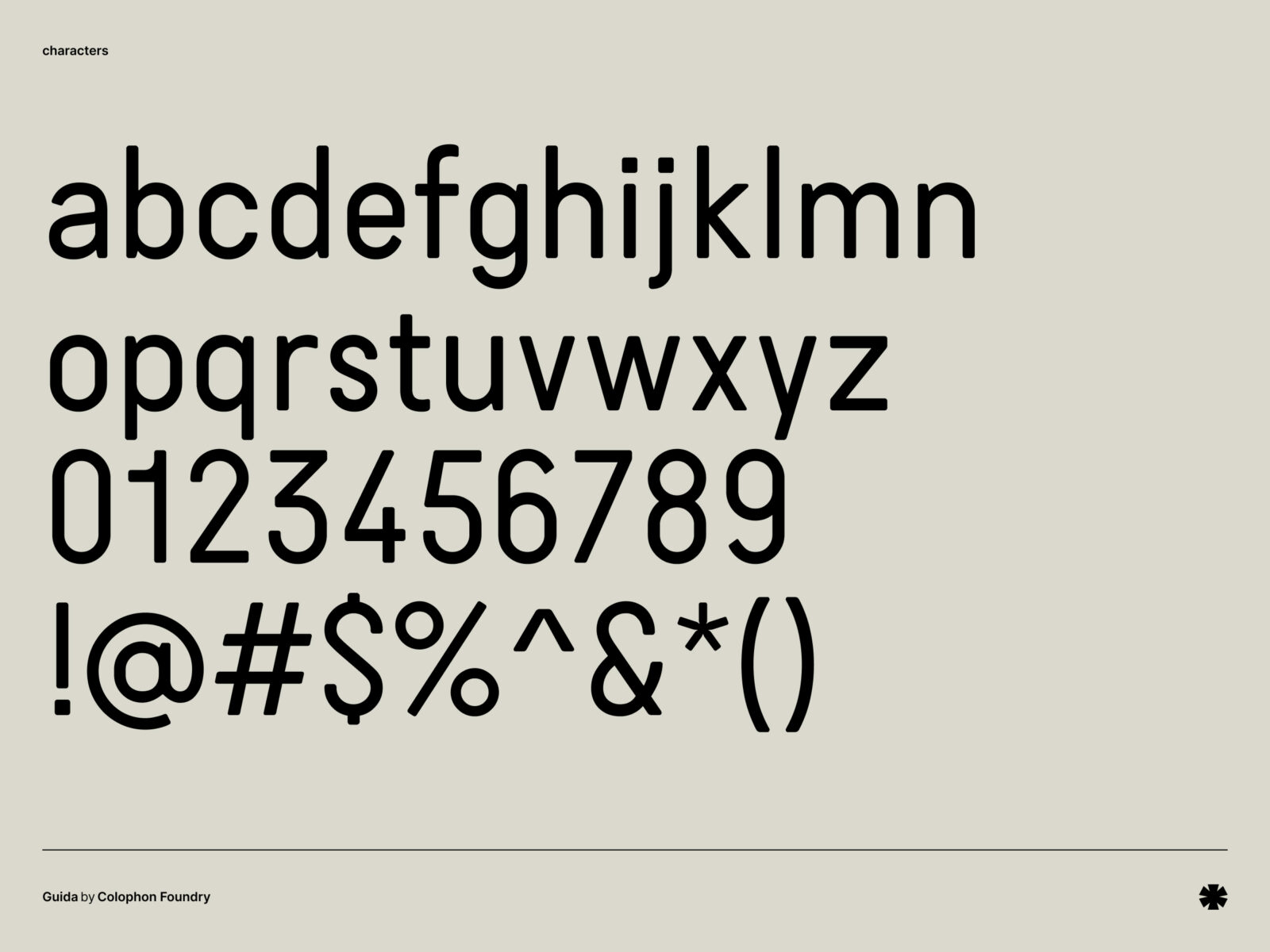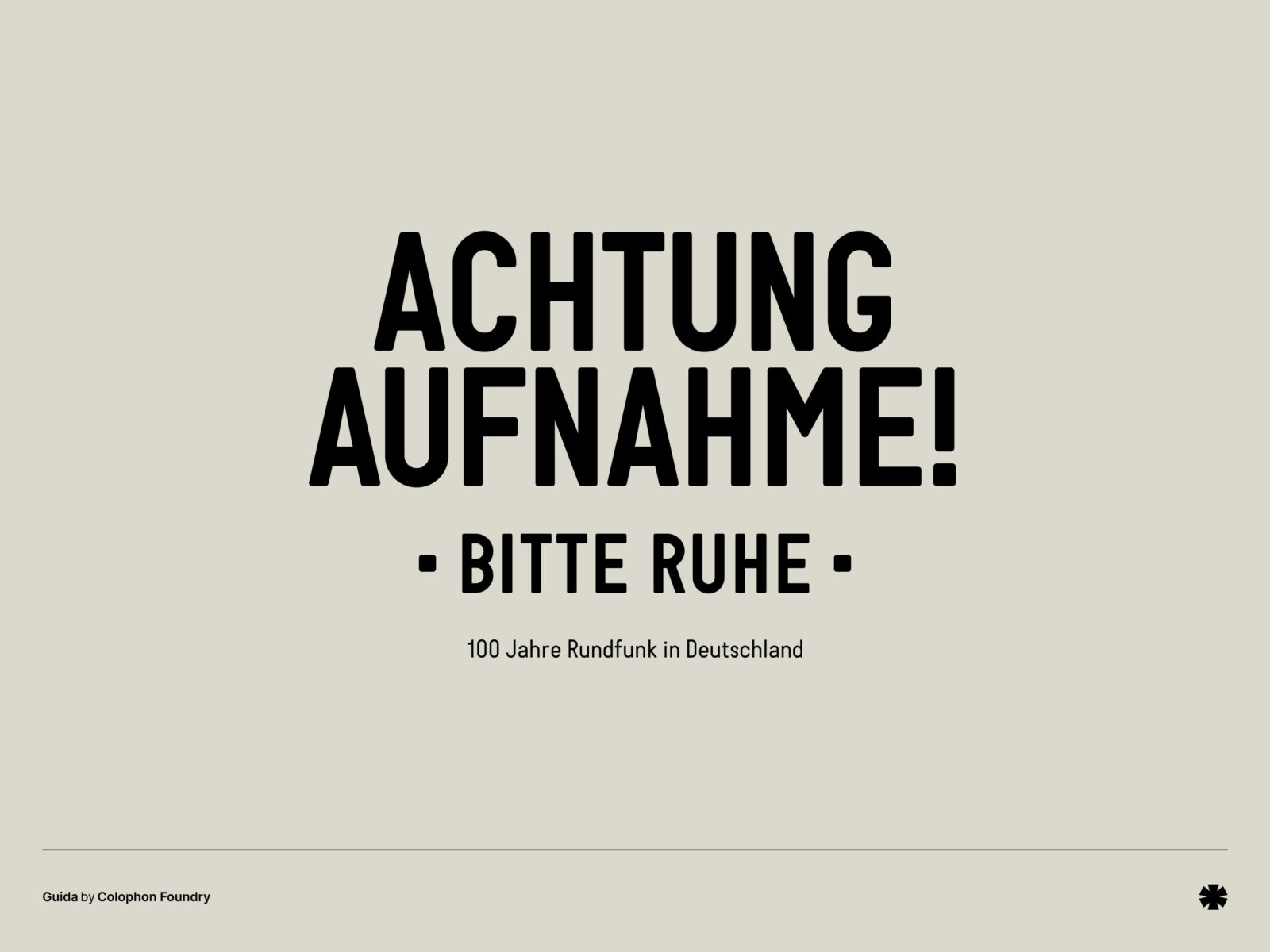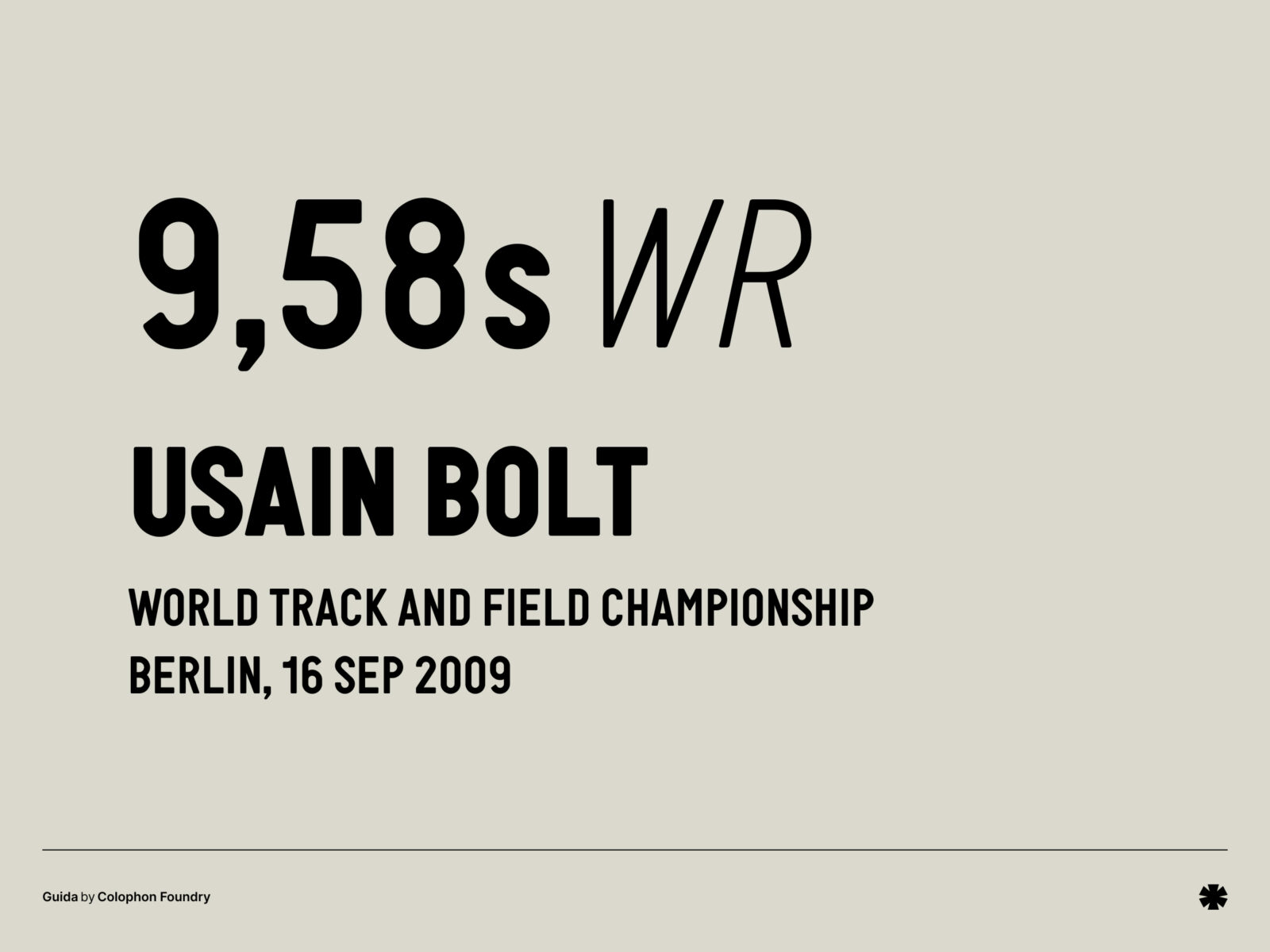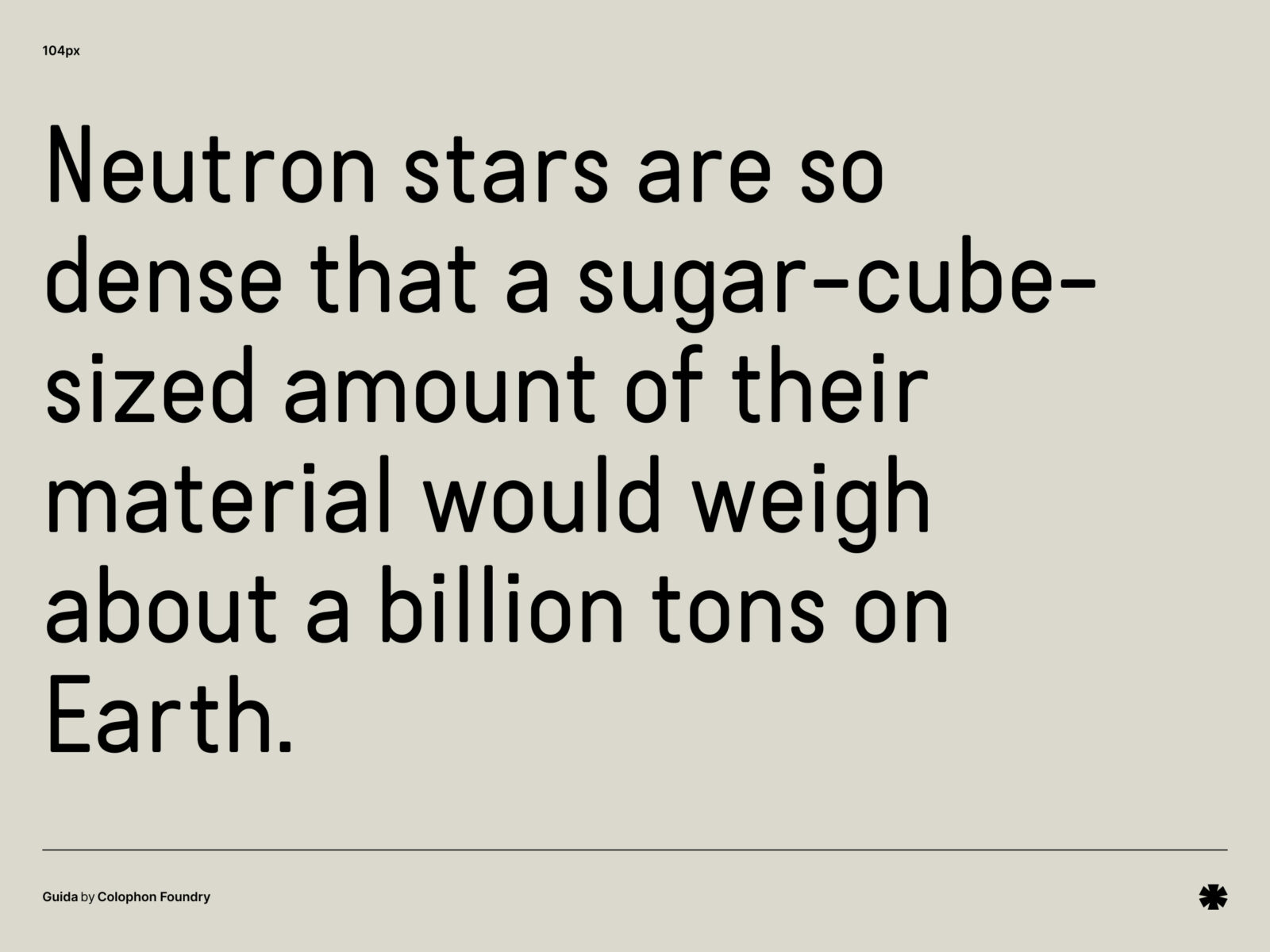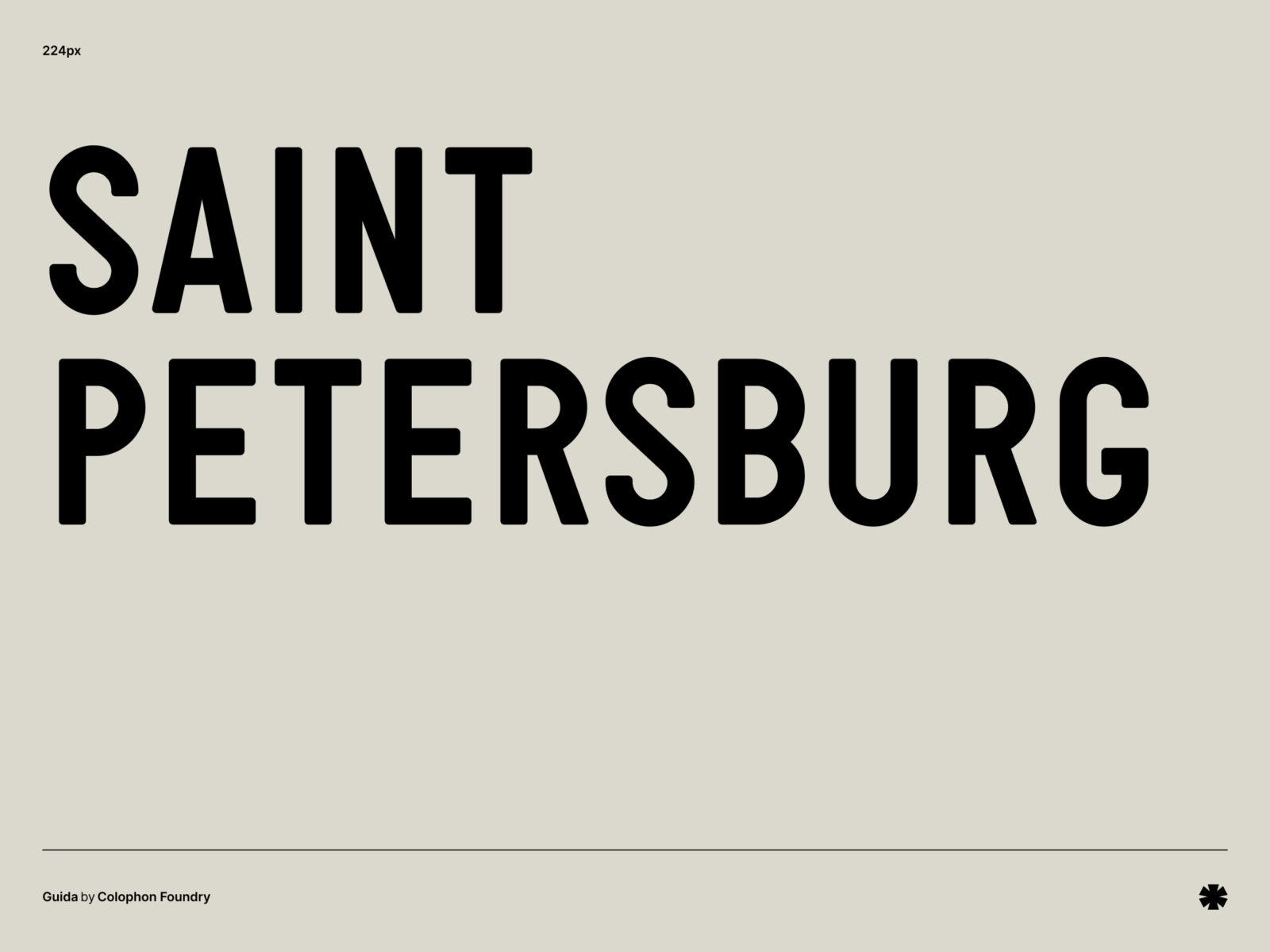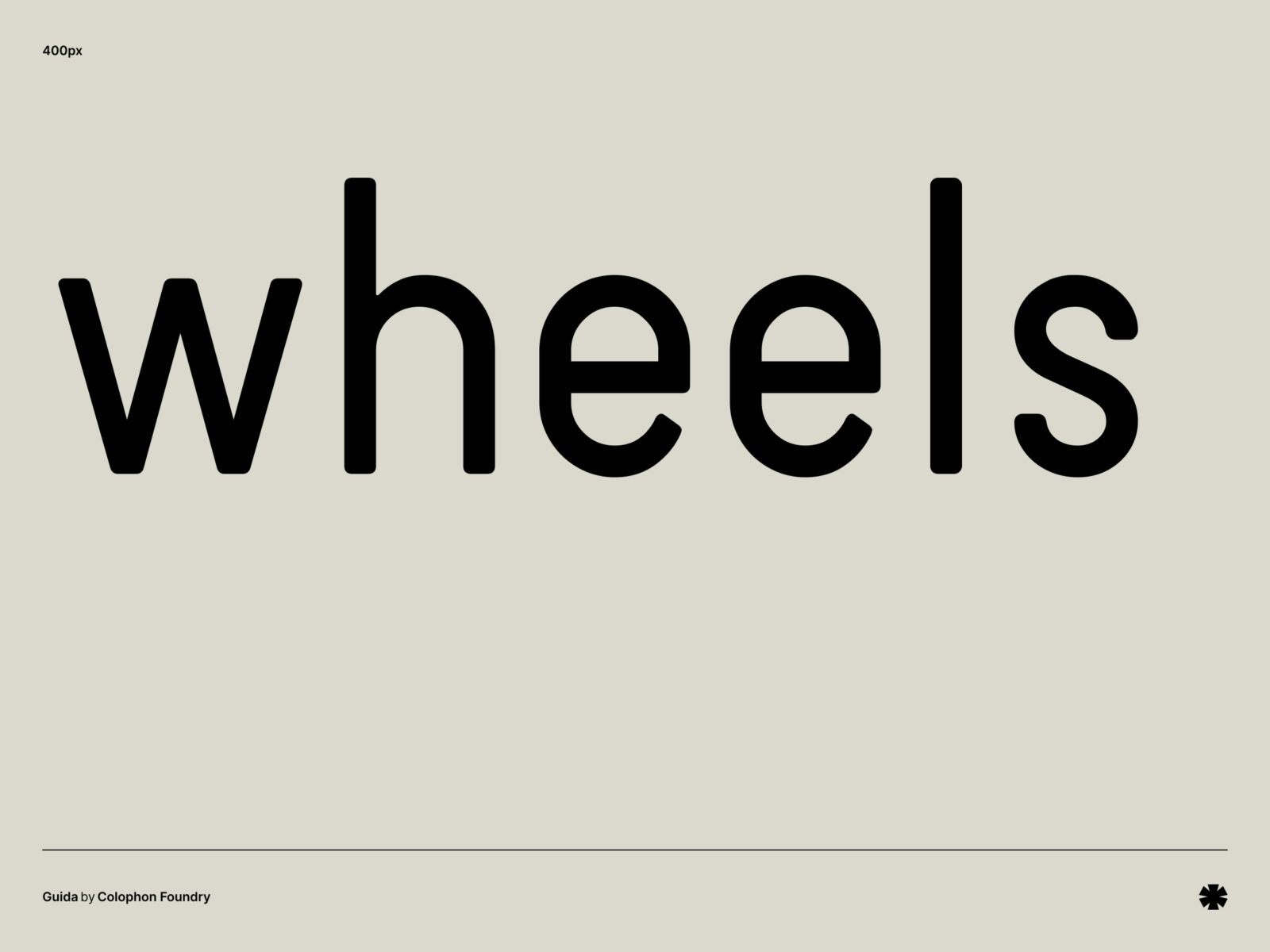
Guida
by Colophon Foundry
Guida is a narrow, almost-monospace looking typeface which is perfect for signage type of designs.
Colophon Foundry
Laure Boer, Sebastian Bissinger